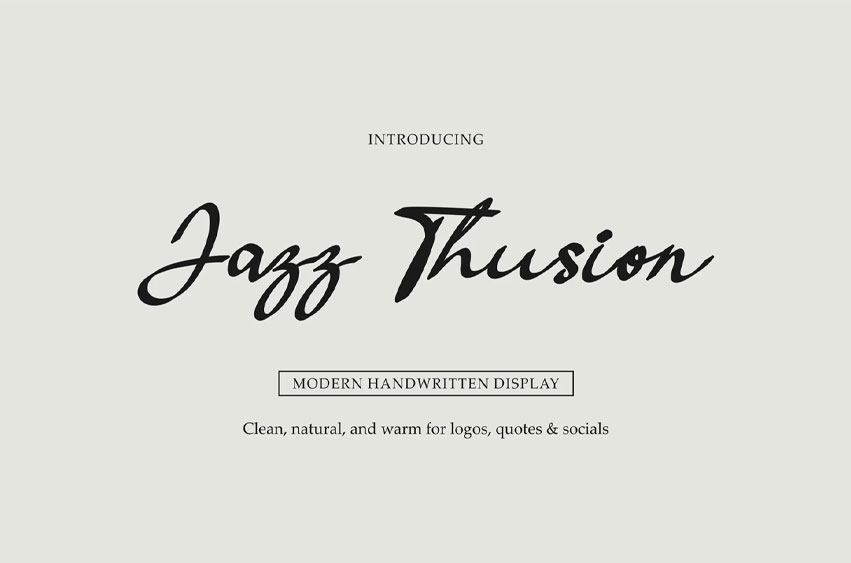
Jazz Thusion Font New Handwritten Style is a regular and authentic display font.
The font is suitable for any branding project like logo, esport, and many more. outstanding in a wide range of contexts.